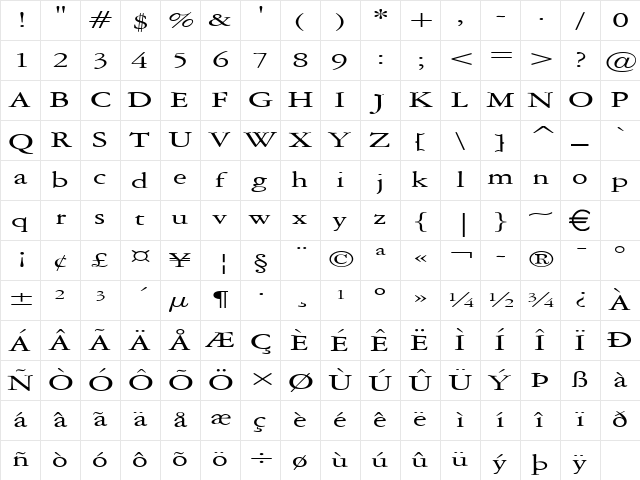
AmethystExtended Normal
Design Context for AmethystExtended
AmethystExtended is a composed and adaptable typeface that performs quietly and consistently across a wide range of design contexts.